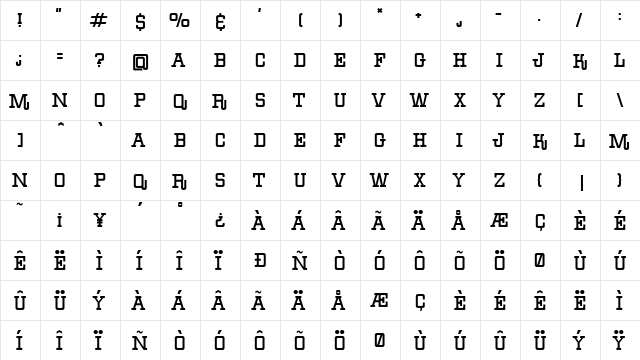
Boiled Denim Regular
Design Context for Boiled Denim Typeface
Boiled Denim is a composed and adaptable typeface that performs quietly and consistently across a wide range of design contexts.